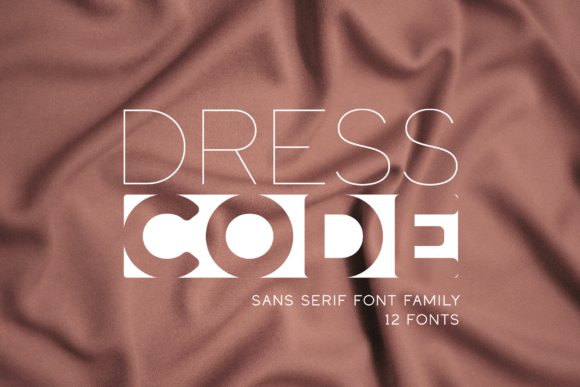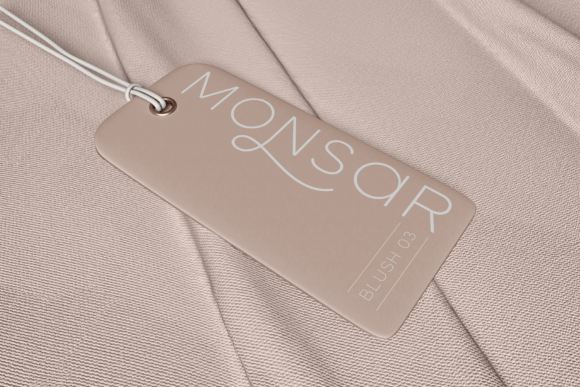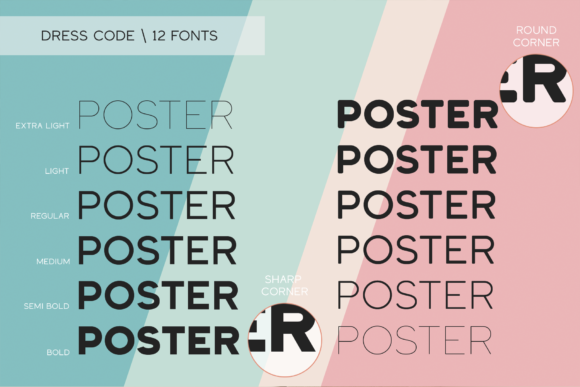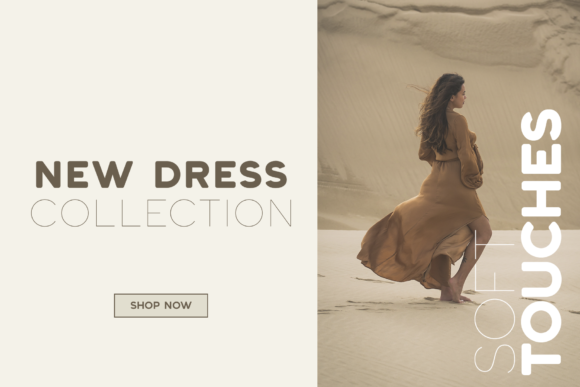
Dress Code Font: A Modern Sans Serif for Inspiring Logo Design
About the Dress Code Font
Let us introduce you to Dress Code Font, where timeless design meets modern craftsmanship. Dress Code is a modern sans-serif font family that includes 12 fonts in 2 styles, each with 6 weights. This font is unique, versatile and easy to read, with its unique glyphs providing endless creative options.
Dress Code excels in headlines, branding applications, and short-form text on posters or packaging. Its clean lines and distinct glyphs make it highly effective for conveying a modern and sophisticated message. However, its less-than-optimal x-height makes it unsuitable for extended body text or UI elements where readability over long stretches is crucial.
The font’s personality is confident and contemporary, leaning slightly towards boldness without sacrificing legibility. It would be an excellent choice for brands aiming for a sleek, professional image or those targeting a younger, design-conscious demographic.
Pairing Dress Code with a complementary serif like Garamond for body text creates a classic yet modern balance. Alternatively, a geometric sans-serif such as Futura could enhance its modern feel, while a script font like Allura would inject a touch of elegance for specific applications like logos or invitations.
Dress Code Font Usage Examples
Dress Code Font Example